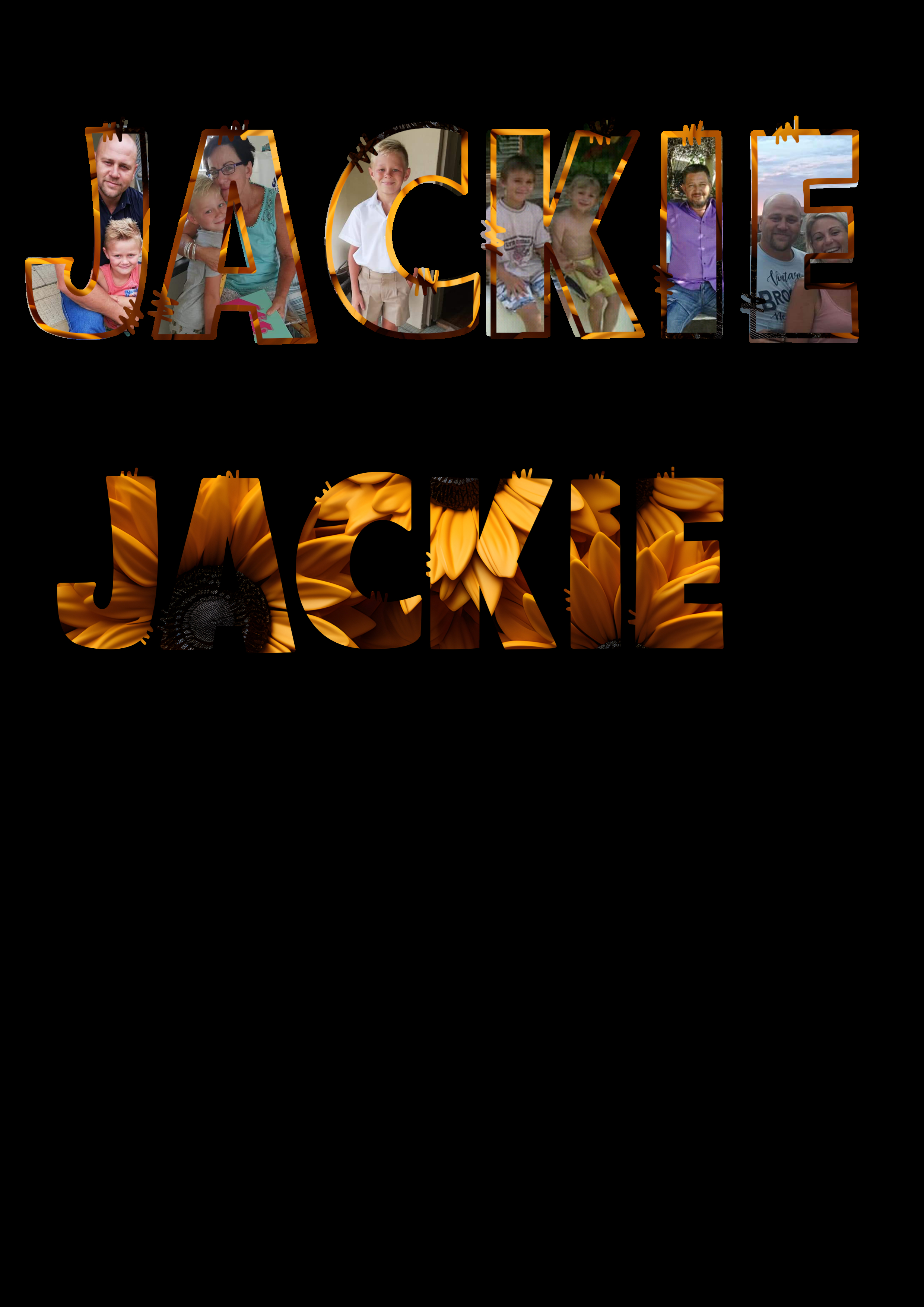
Sketchy Doodle Font
Introducing Sketchy Doodle! A fun hand lettered font with a doodled look.
Love the look of the Doodle Letters in sublimation and SVG Designs, but don’t want to do them yourself? This full set includes all 26 uppercase Letters, numbers 0-9 and an exclamation point, heart (*), and dash.
Upper case includes all letter outlines, all lower case are the letters filled in.
Easily fill the font with patterns for fun designs, or leave them empty.
Because this is a fully functioning True Type Font, you will not have to trace each letter in your design programs in order to cut or modify them. Simply type and create, the possibilities are endless!